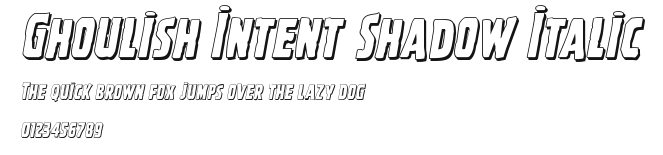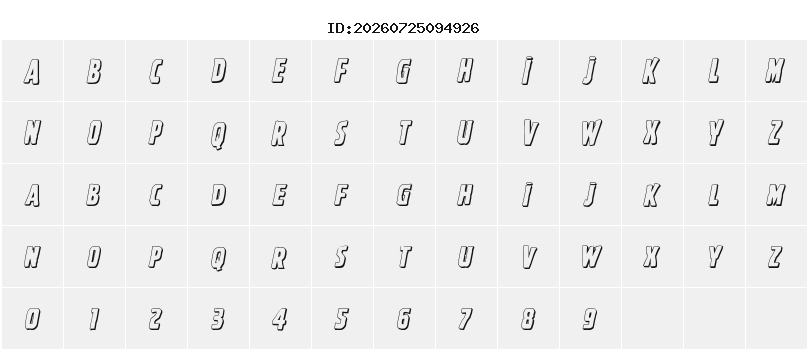
Ghoulish Intent Shadow Italic Preview
• Font Name: Ghoulish Intent Shadow Italic
• Full Font Name: Ghoulish Intent Shadow Italic
• PostScript Name: GhoulishIntentShadowItalic
About Ghoulish Intent Shadow Italic.ttf
Ghoulish Intent Shadow Italic.ttf is a modern, elegant sans-serif font designed for ultimate readability and visual harmony. Perfect for branding, headlines, web design, and print materials.